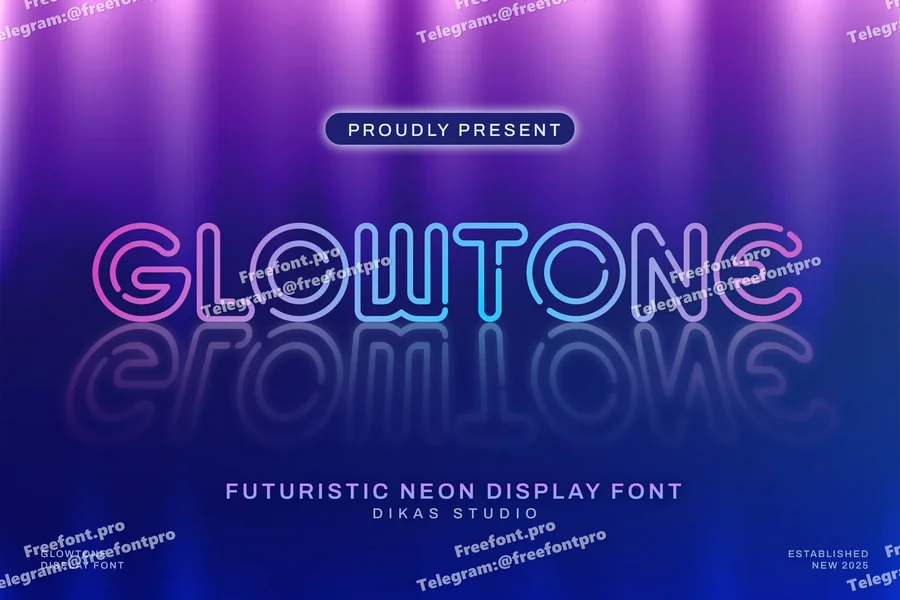
Glowtone – Neon Sign Font
Glowtone is a bold and vibrant neon-style sans serif font that captures the essence of glowing lights and electric vibes. With letterforms that mimic the shape of neon tubing, Glowtone brings instant visual energy to your design — making it perfect for anything that needs to shine.